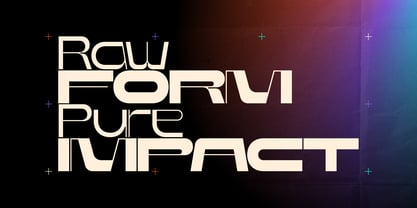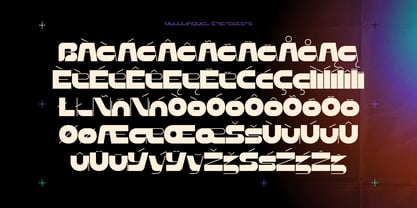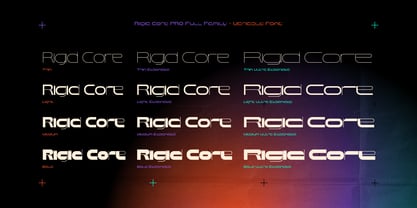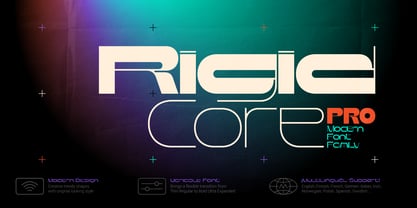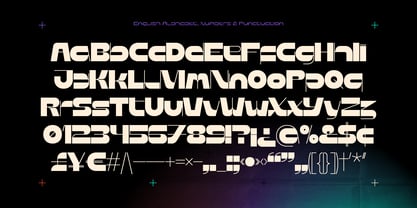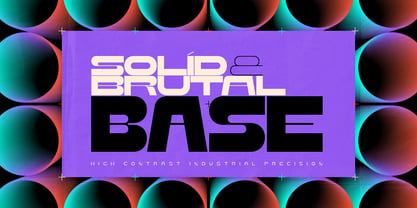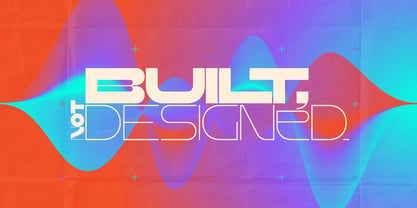
Rigid Core Pro
La famille de polices Rigid Core Pro a été conçue par Gleb Guralnyk et publiée par Gleb Guralnyk. Rigid Core Pro contient 13 styles et options de package familial. En savoir plus sur cette famille
Meet a powerful modern grotesque font — Rigid Core Pro. Blending raw brutalist geometry with a fully responsive variable format, this font seamlessly transitions from sleek thin to a massive, ultra-expanded bold. Perfect for high-contrast branding, editorial layouts, and cutting-edge web designs.
Rigid Core Pro family includes 4 weights and 3 widths, giving you 12 fonts in total, plus 1 variable font containing all weights and widths in a single file.
A lot of my fonts inherits vintage graphic styles but nevertheless I don't like to stick to one theme for a long time. That's why I'm trying to create fonts in different styles and from different eras, from old gothic calligraphic to modern handwritten scripts, from medieval antique to minimalist sans-serif typefaces. It's always interesting to design something new, and expand my skills in novel font design directions.